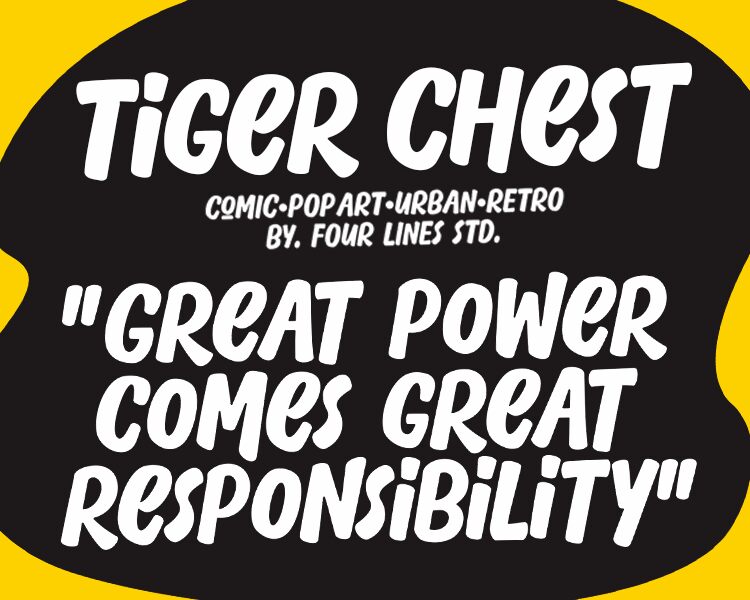
Tiger Chest font by Four Lines is a display typeface with an expressive casual aesthetic and vintage feel. The font exudes an energetic tone that is simultaneously elegant, harmonious, and peaceful.
This free display font has versatile usage with books, logos, branding projects, invitations, posters, movie titles, magazines, web pages, or book covers. It also fits video editing work as well as longer text paragraphs.